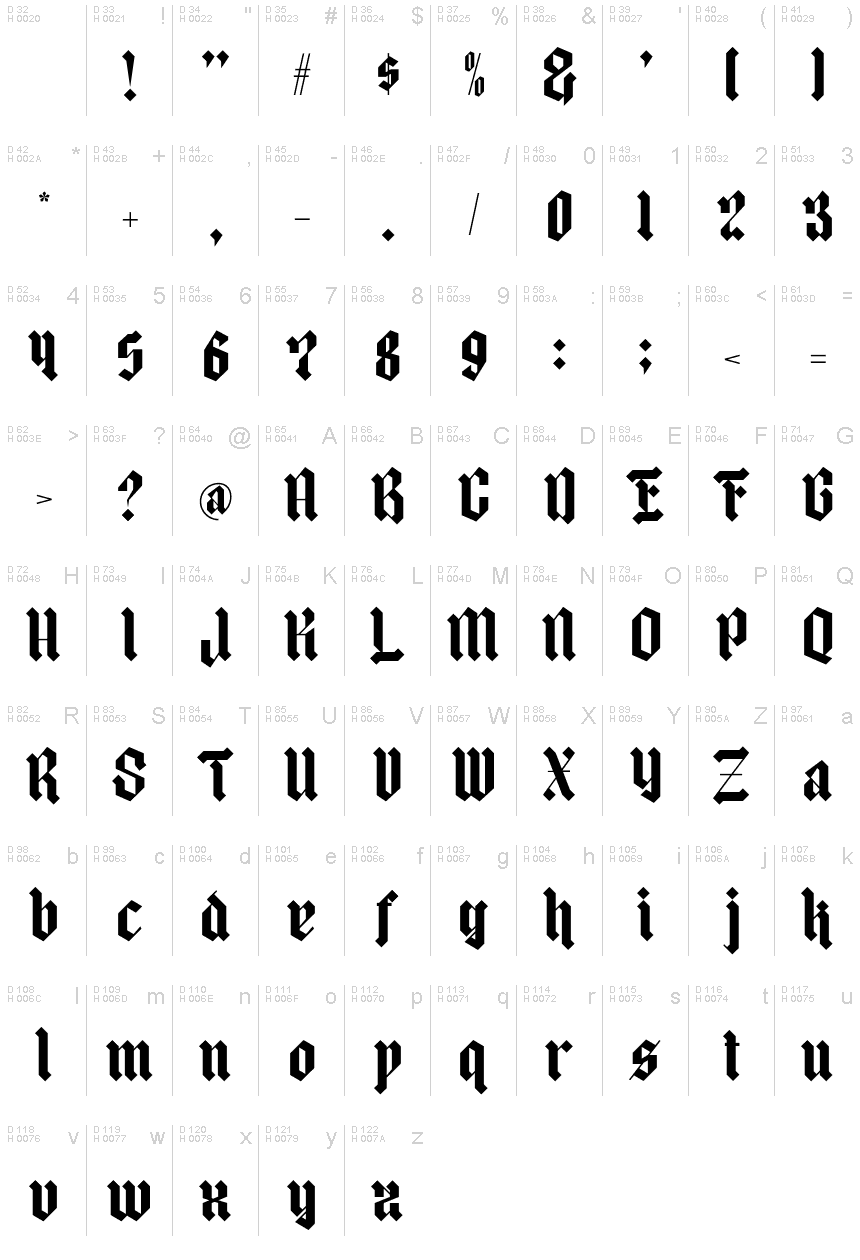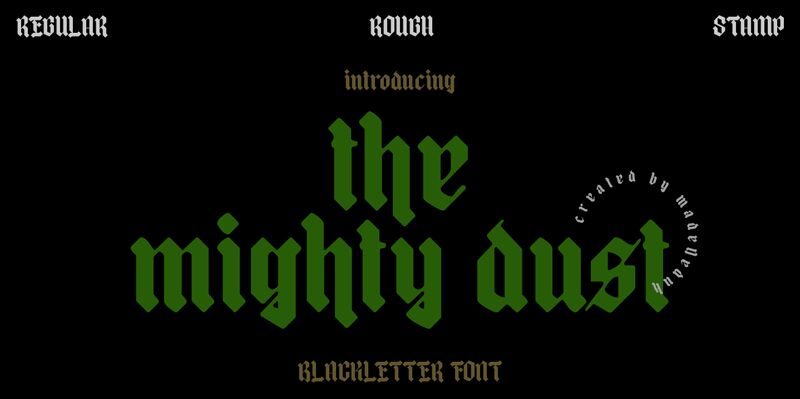
Mighty Dust, designed by madeDeduk, is a captivating gothic font with a modern twist. Its unique and edgy design sets it apart, making it perfect for projects seeking a touch of mystery and intrigue.
With its extra-condensed width, Mighty Dust adds an element of elegance to any design, whether it's for album covers, book titles, or tattoo art.
This versatile font typeface will make your projects stand out from the crowd and leave a lasting impression on your audience.